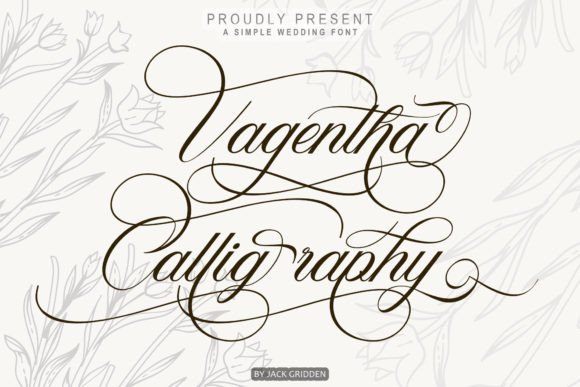
Dive into the world of elegance and creativity with Vagentha Calligraphy Font, a script font family that captures the essence of romance and beauty. Designed by jackgridden, this font is the perfect choice for web page design, adding a touch of luxury and sophistication to your projects.
With its enchanting characters that dance along the baseline, Vagentha Calligraphy creates a captivating visual experience that draws your audience in. Whether you're designing wedding invitations, branding materials, or social media graphics, this font adds a touch of magic and charm to every project.
The PUA encoding of Vagentha Calligraphy gives you access to a vast array of glyphs and ligatures, making it easy to add intricate details and flourishes to your designs. Unleash your creativity and let your imagination soar as you explore the endless possibilities of this versatile font.
Vagentha Calligraphy is more than just a font; it's an artistic expression that elevates your designs to new heights. Experience the joy of creating stunning visuals that leave a lasting impression. Let Vagentha Calligraphy be your creative companion, guiding you towards design excellence.